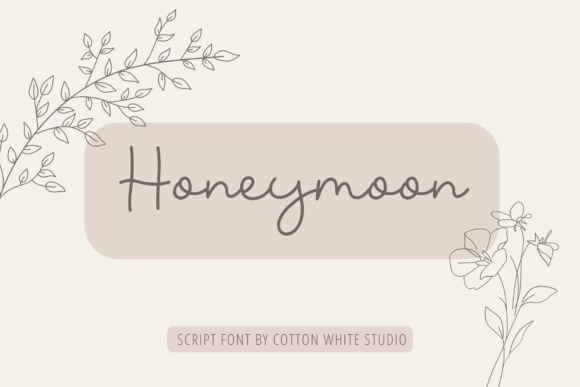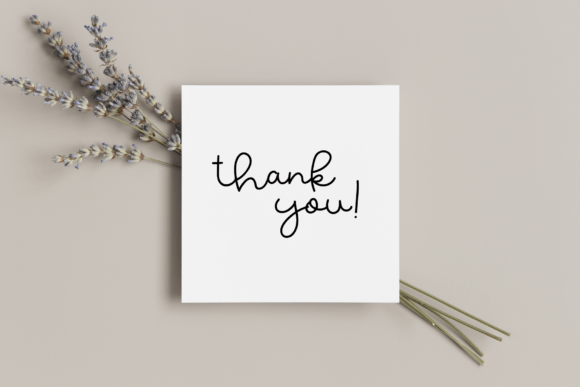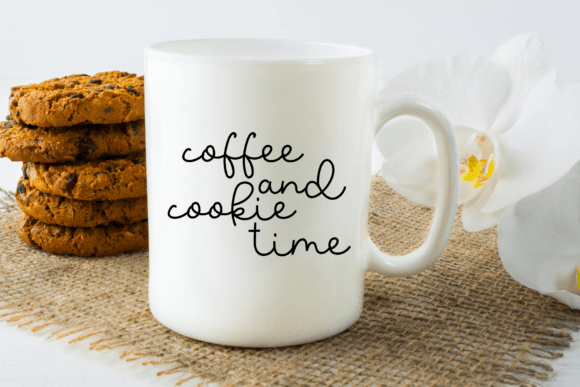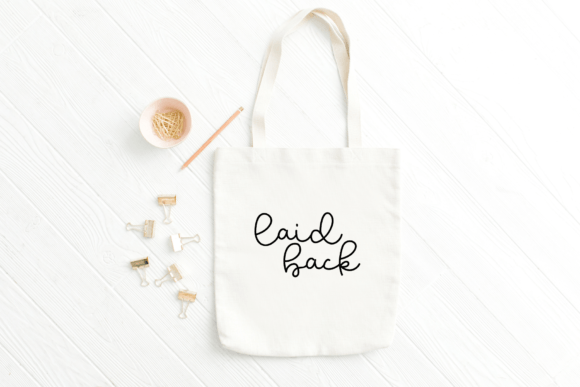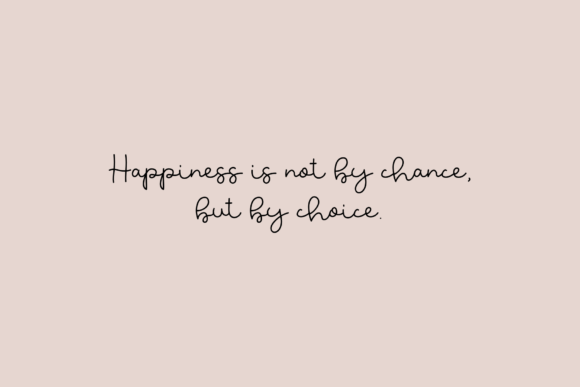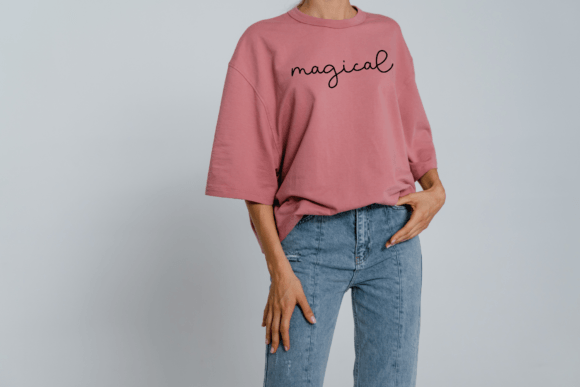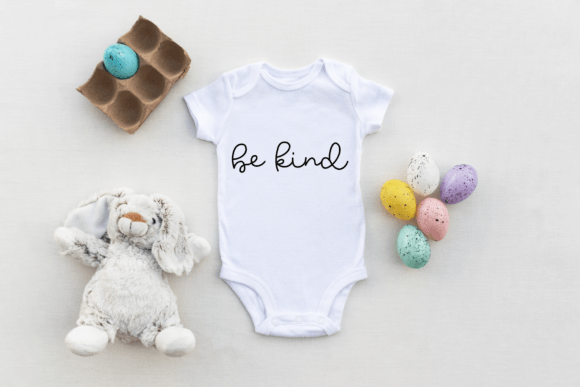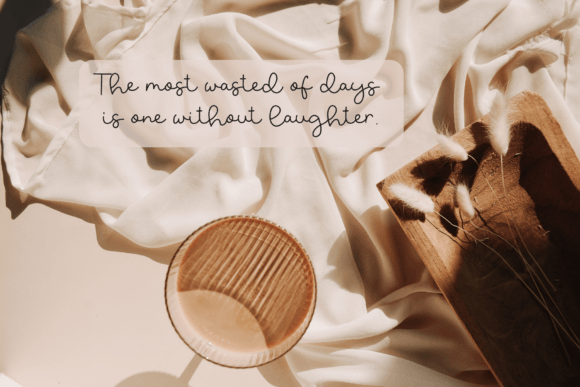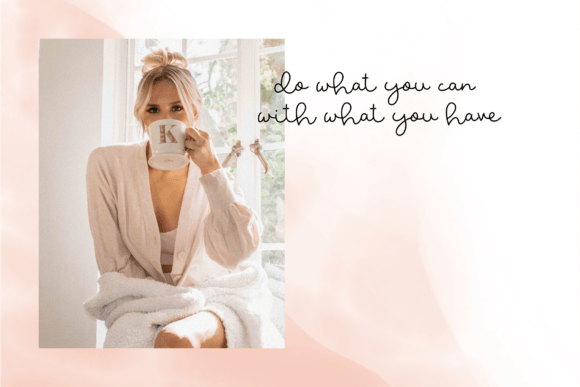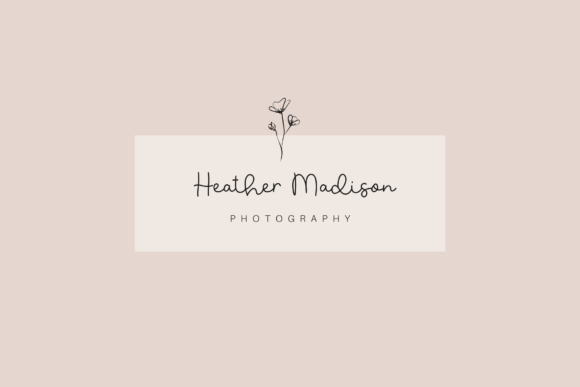
Honeymoon Font
**Elevate Your Designs with Honeymoon Script Font: A Touch of Handcrafted Elegance**
Honeymoon script font is a stunning, hand-drawn typeface that will breathe life into your designs. Whether you’re working on branding, invitations, blogs, planners, or any other creative project, Honeymoon script font adds an authentic and elegant hand-lettered touch with ease. Here’s why Honeymoon is the perfect choice for elevating your design work:
1. **Elegance and Grace:** Honeymoon script font exudes elegance and grace, making it ideal for projects that require a touch of sophistication. Its flowing, handcrafted design adds a sense of refinement to your work.
2. **Hand-Drawn Authenticity:** This font captures the essence of handcrafted typography, giving your designs a genuine, human touch. It replicates the beauty of handwritten calligraphy with precision.
3. **Versatile Application:** Honeymoon script font is versatile and adaptable. Whether you’re creating a logo, wedding invitations, blog graphics, or planner layouts, this font seamlessly integrates into various design contexts.
4. **Brand Enhancement:** Elevate your brand identity with Honeymoon. Its unique and handcrafted appearance sets your brand apart, leaving a lasting impression on your audience.
5. **Invitations and Events:** Design elegant and personalized invitations for weddings, parties, or special events. Honeymoon script font adds a sense of occasion and luxury to your event materials.
6. **Blog and Web Graphics:** Make your blog or website stand out with custom graphics and headings created using Honeymoon. Its distinctive style enhances your online presence.
7. **Planners and Journals:** If you’re into planner design or digital journaling, Honeymoon is the perfect choice. It brings a touch of luxury to your planning pages and journal layouts.
8. **User-Friendly:** Honeymoon script font is easy to work with, allowing you to effortlessly incorporate it into your designs. Whether you’re a design professional or a beginner, it’s accessible to all.
9. **Unlimited Creativity:** Experiment with various styles, compositions, and color palettes while using Honeymoon. It provides you with creative freedom to achieve your desired look.
10. **Timeless Appeal:** Honeymoon’s classic and timeless design ensures that your projects maintain their appeal over time. It’s a font that never goes out of style.
Enhance your designs with the handcrafted elegance of Honeymoon script font. Whether you’re working on branding, invitations, blogs, or planners, this font adds a unique and authentic hand-lettered touch that effortlessly elevates your projects. Bring sophistication and grace to your designs with Honeymoon script font, and watch your creativity shine.